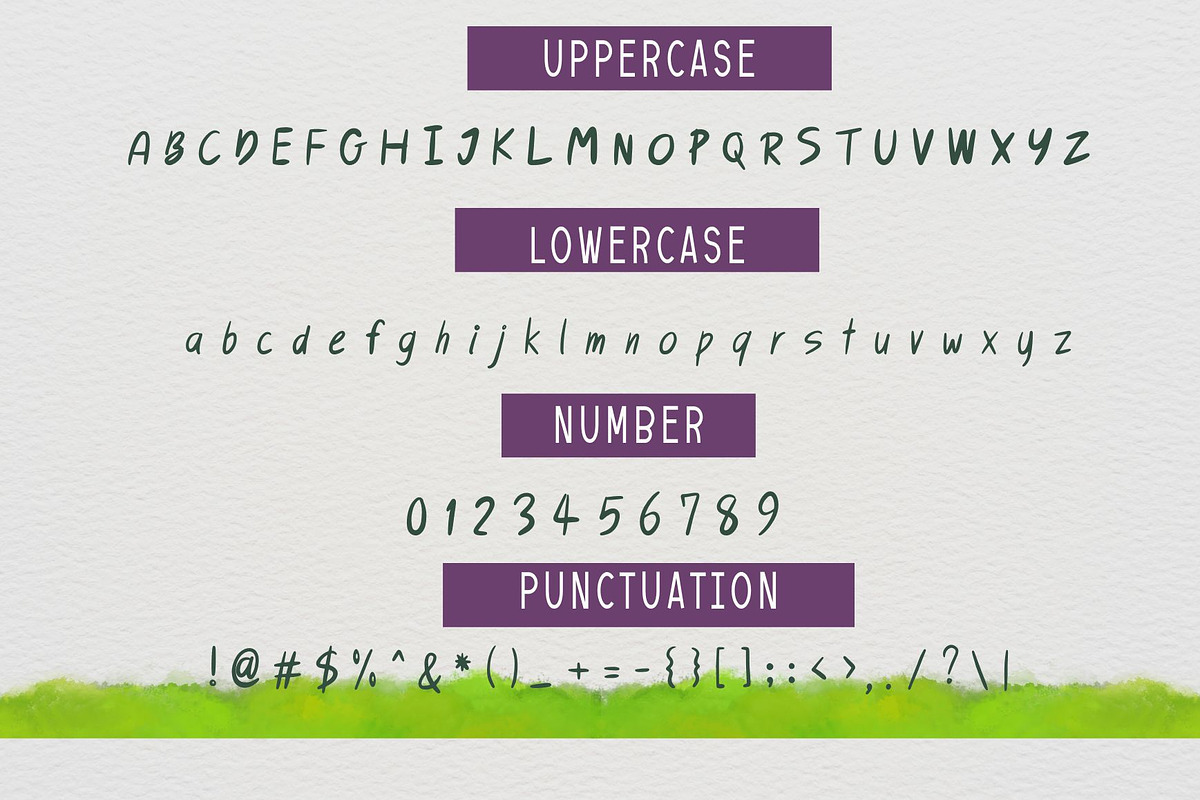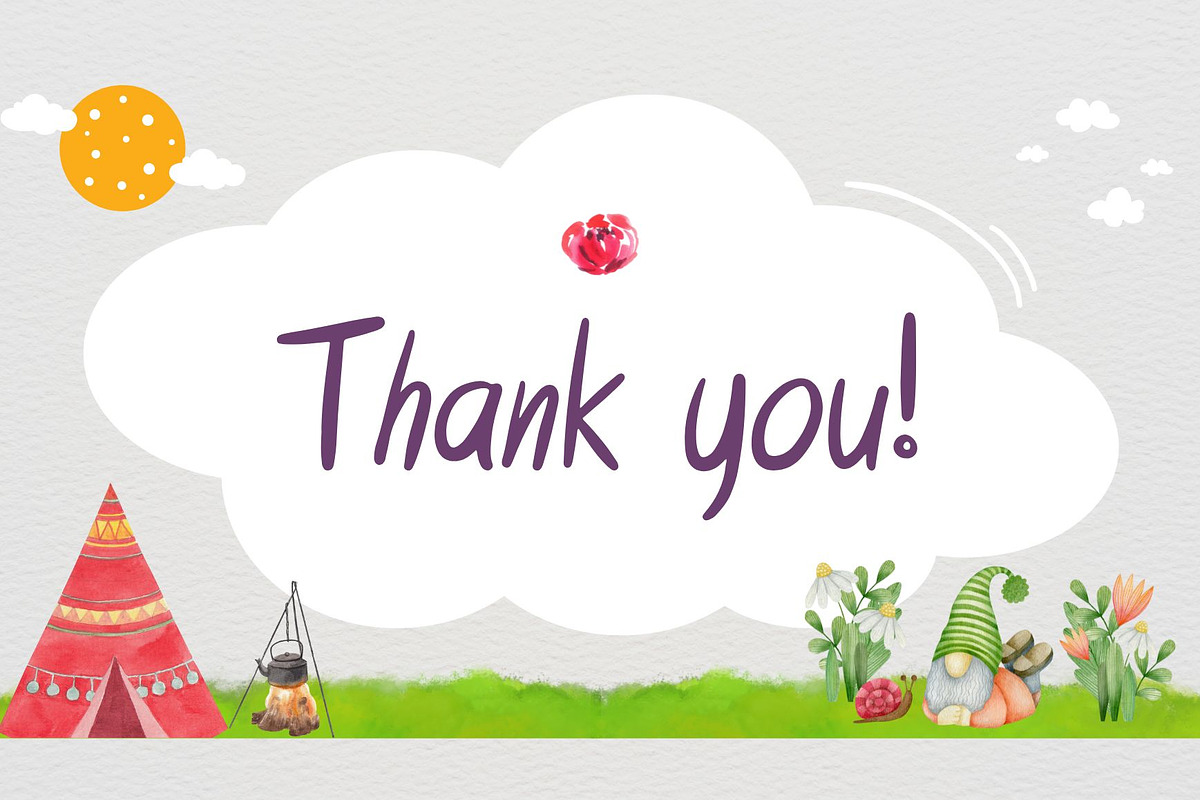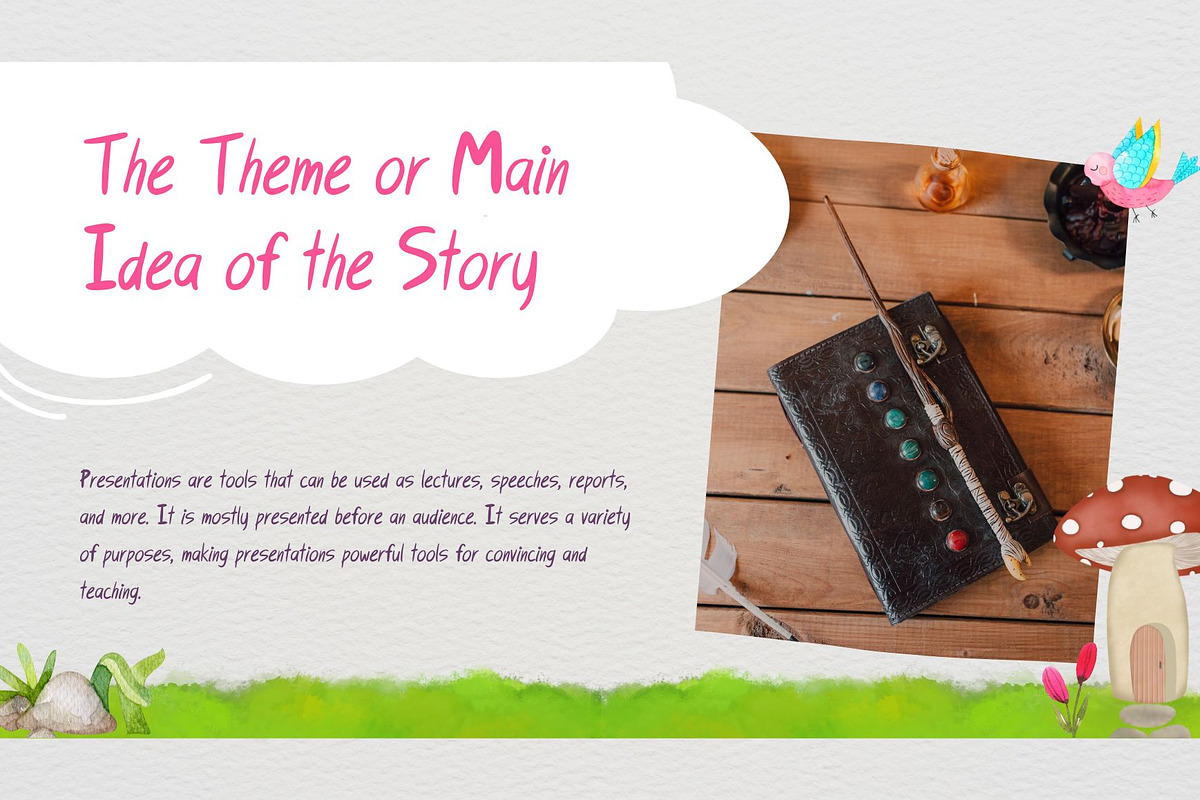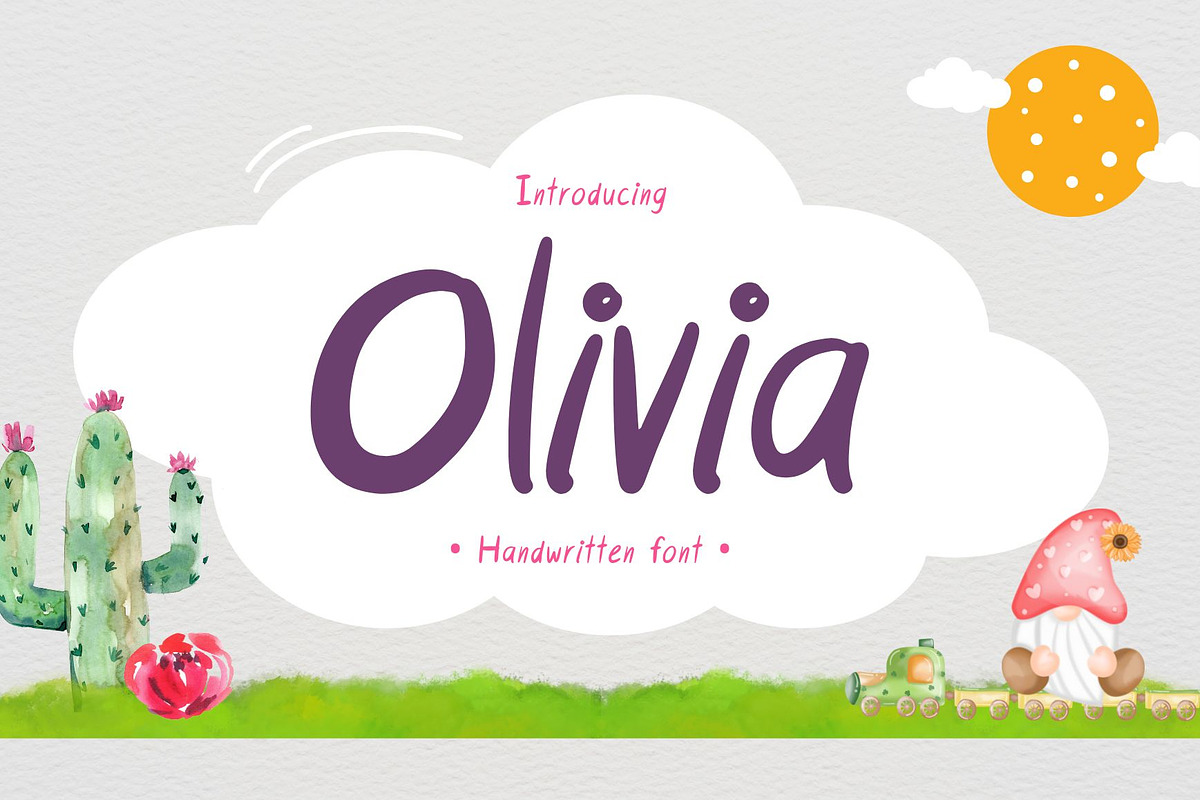
Olivia - Handwritten Font
Olivia is a cute and modern handwritten font. The lightness of its characters makes it suitable for a wide range of design projects. It embodies playfulness and authenticity and is the perfect choice for all your favorite projects, or even for blog posts, logos, branding, ads, invitations, greeting cards, planners, photo albums, decorations, and much more. Add it to any of your designs, and enjoy the results!